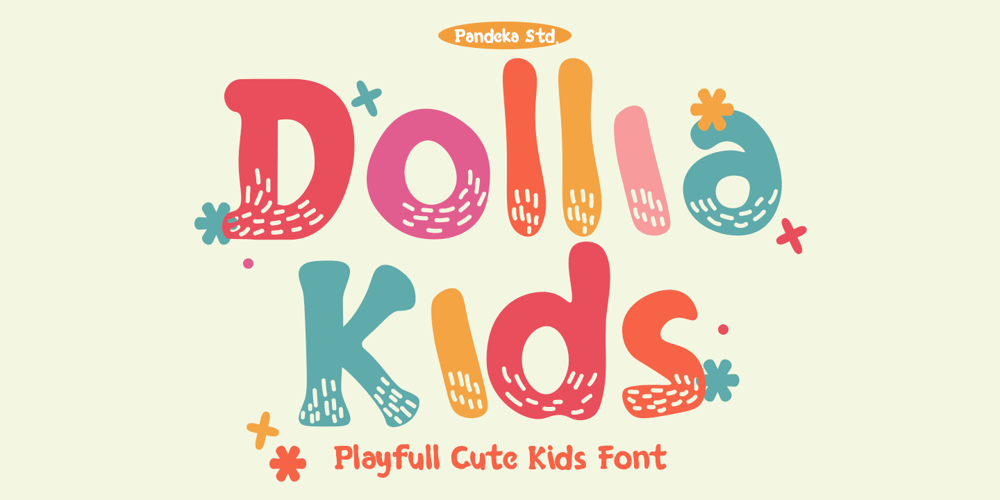
Dollia Kids Font Family was designed by Sagara Nararya and published by Pandeka Studio. Dollia Kids contains 3 styles and family package options. Dollia Kids – Playful Jungle Vibe FontIntroducing Dollia Kids, a fun and lively font inspired by the jungle’s playful energy! Perfect for online games, posters, fast food menus, magazines, YouTube covers, and social media. This cheerful font adds a joyful touch to any design.Dollia Kids comes in three styles: Regular, Spot, and Inline, offering versatility for your creative projects. Ideal for capturing the excitement and adventure of childhood!What’s Included? Doliia Kids Main FIles 3 Style : Regular, Sport and Inline Basic latin A-Z and a-z Numbers Punctuation Works on PC & Mac Simple installations Accessible in the Adobe Illustrator, Adobe Photoshop, Adobe InDesign, even work on Microsoft Word. PUA Encoded Characters Fully accessible without additional design software. Language Support: Danish, English, Estonian, Filipino, Finnish, French, Friulian, Galician, German, Gusii, Indonesian, Irish, Italian, Luxembourgish, Norwegian Bokmål, Norwegian Nynorsk, Nyankole, Oromo, Portuguese, Romansh, Rombo, Spanish, Swedish, Swiss-German, Uzbek (Latin)Feel free to follow, like and share. Thanks so much for checking out my shop!Have a great day!Pandeka Studio